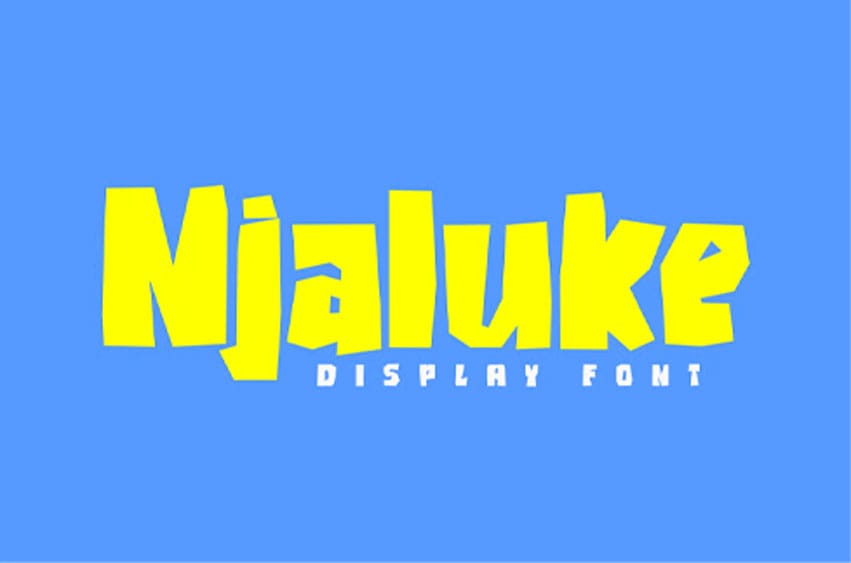
Njaluke Font Display Font. It is suitable for flyers, posters, novels, letterheads, or any design requirements you want to be awesome.
It will certainly amaze your readers.